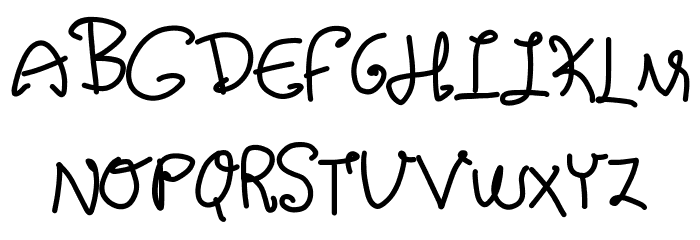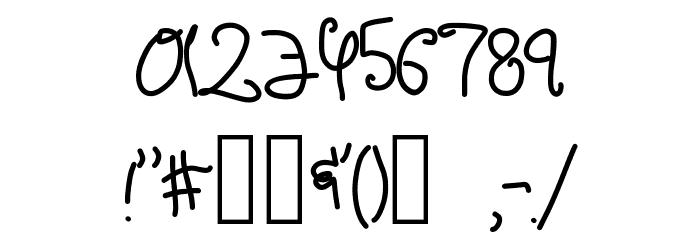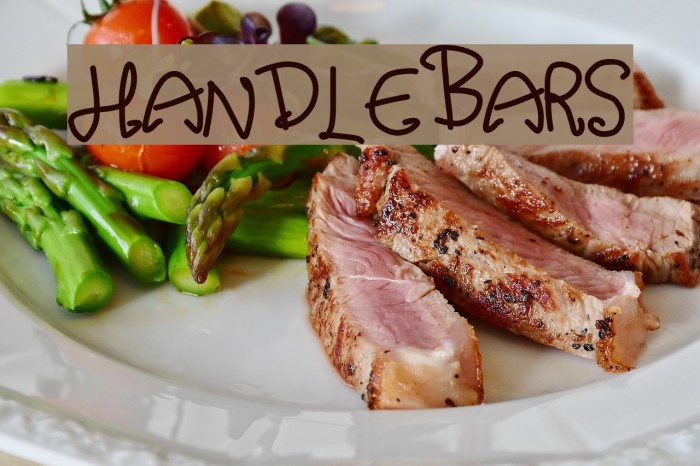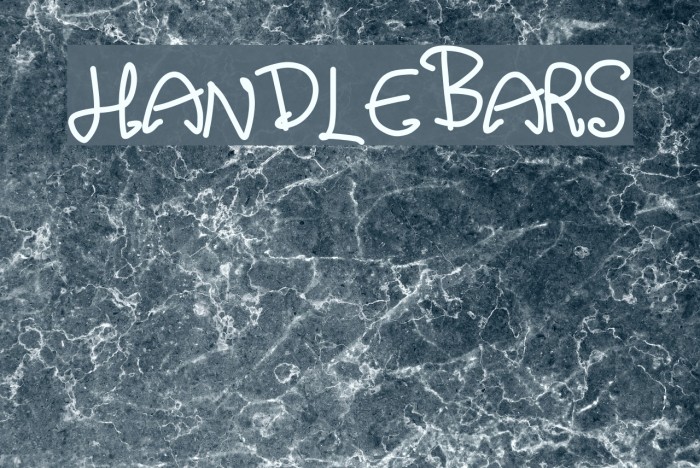
handlebars Font
This font features a playful and whimsical style, characterized by its handwritten appearance. The letters are bold and have a casual, informal look, with a slight slant that adds to their dynamic feel. The strokes are consistent in thickness, giving the font a uniform appearance despite its freeform style. The characters are well-spaced, providing readability while maintaining the font's unique charm. The numbers and special characters follow the same playful design, making them cohesive with the alphabet. This font is ideal for projects that require a fun and approachable aesthetic.
A playful, handwritten font with bold, consistent strokes and a whimsical style.
- Proposed Projects: Ideal for children's books, greeting cards, playful branding, and casual invitations.
- Category: Handwritten
- Overall Style: Playful
- Use Case: Headlines, Logos, Informal Text